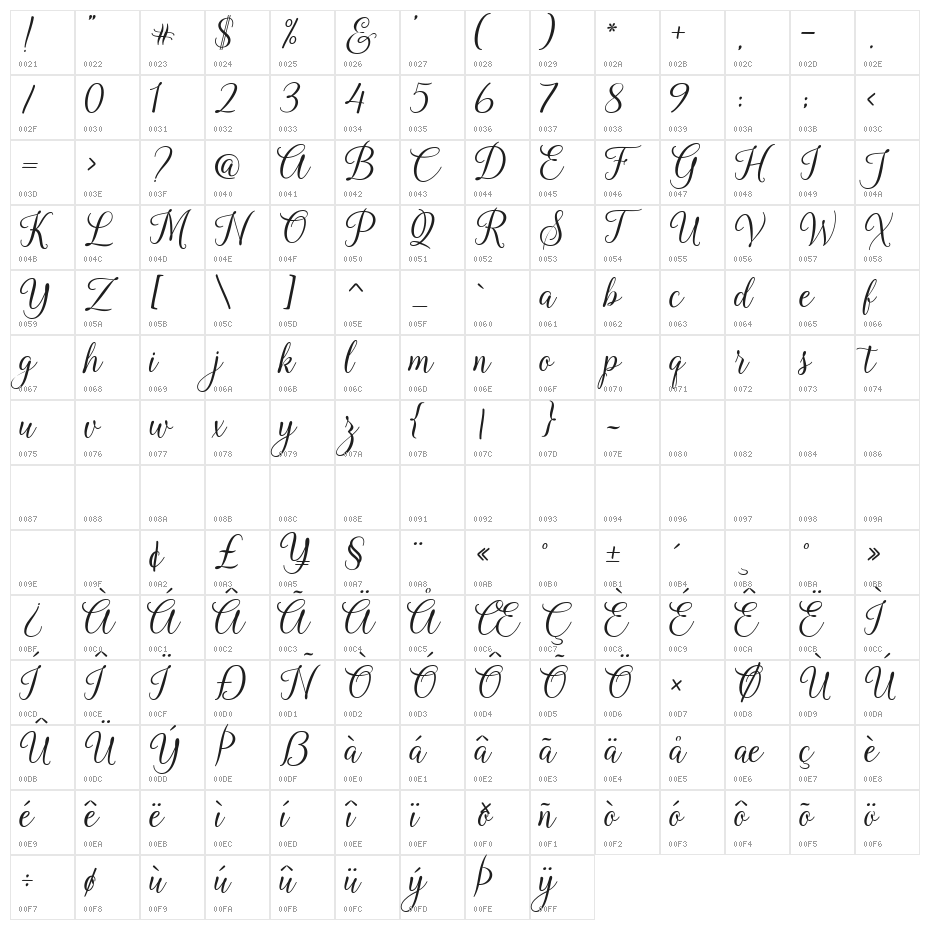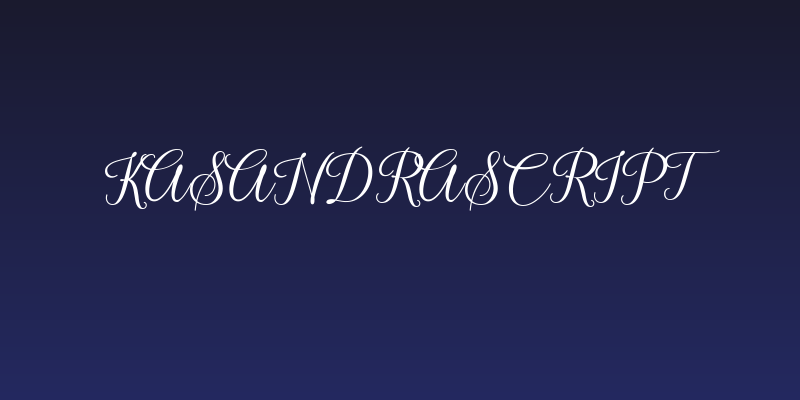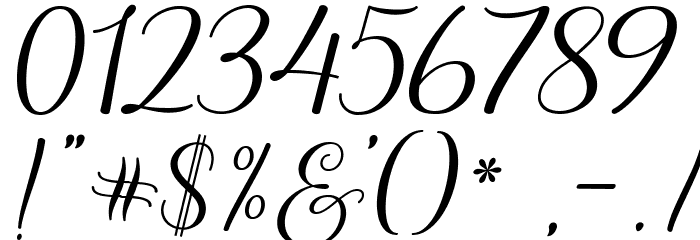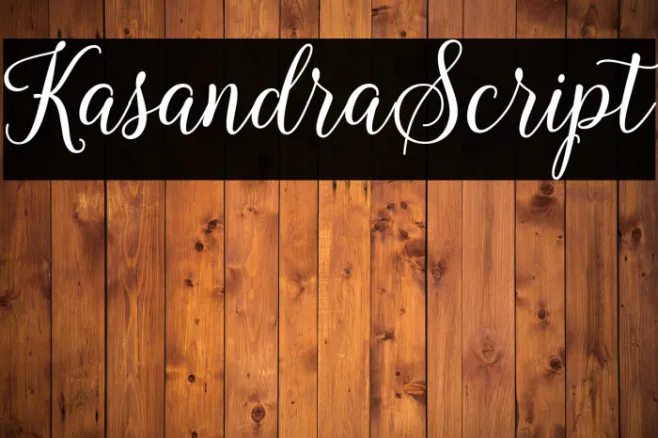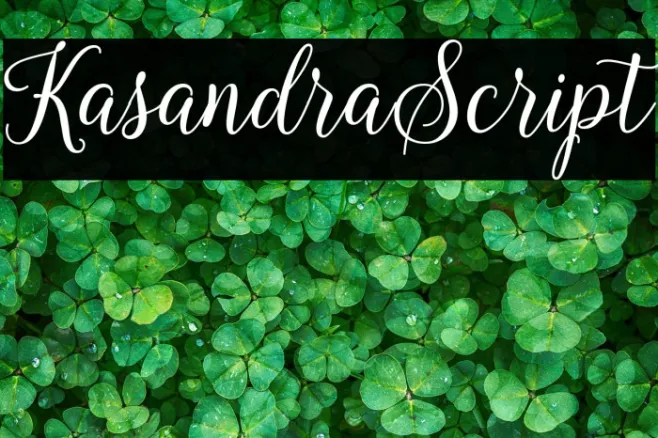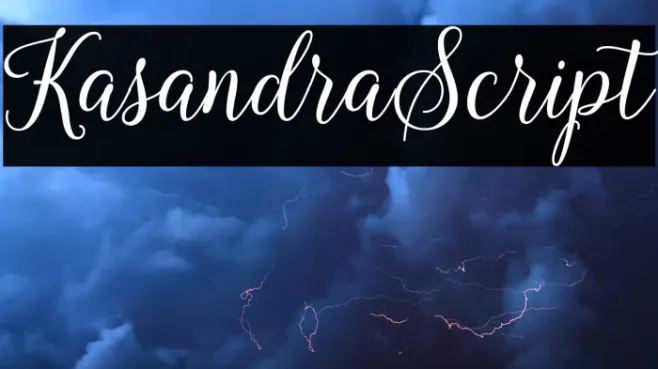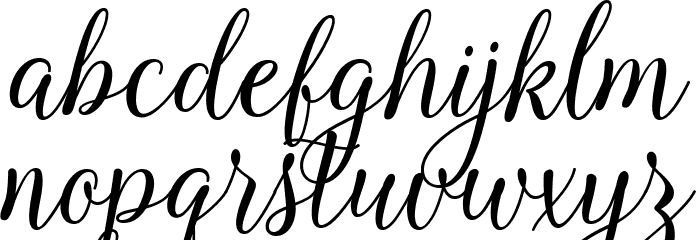
KasandraScript Font
KasandraScript Description
This elegant script font features a flowing, cursive style with graceful loops and swashes. The uppercase letters are ornate, with distinctive flourishes that add a touch of sophistication. The lowercase letters maintain a consistent slant, enhancing the fluidity and rhythm of the text. The numerals are stylishly integrated, complementing the overall aesthetic. Special characters are thoughtfully designed to match the script's elegance, making it suitable for decorative purposes. The font's smooth curves and delicate lines create a harmonious balance, ideal for projects that require a touch of class and refinement.
| Proposed Projects | Ideal for wedding invitations, elegant branding, greeting cards, and decorative signage. |